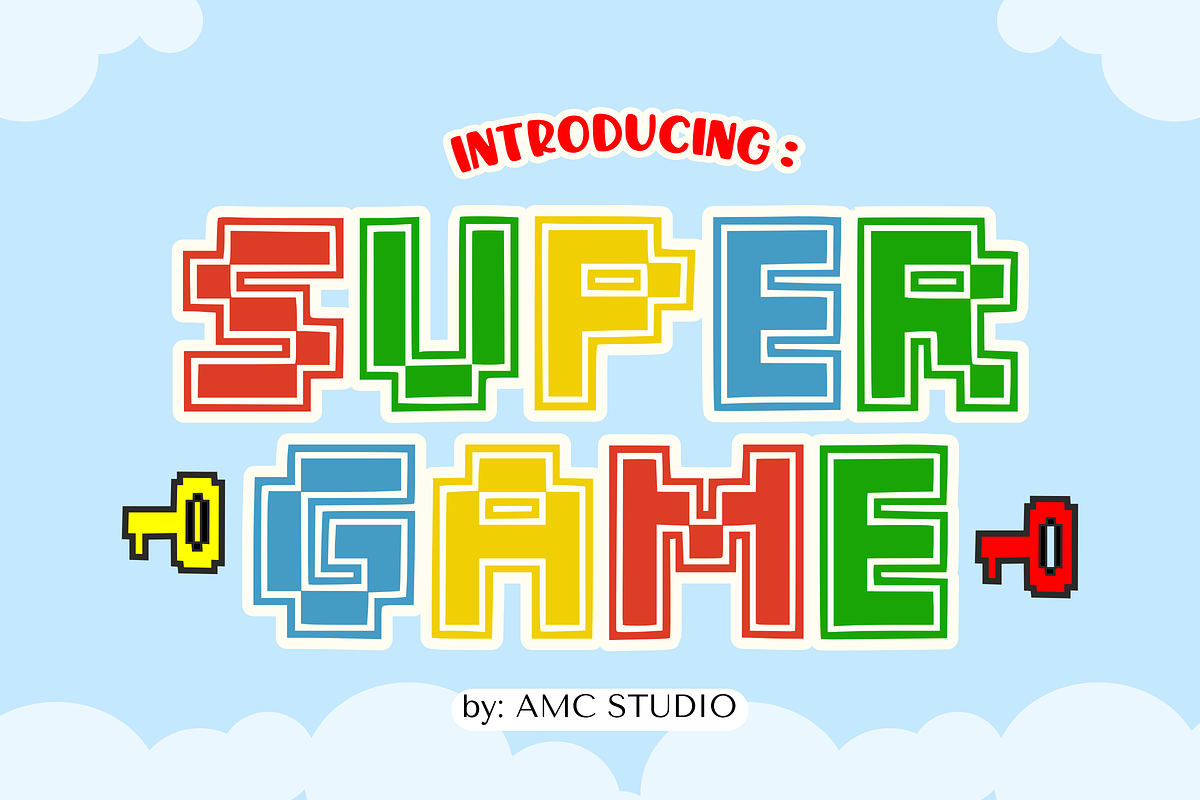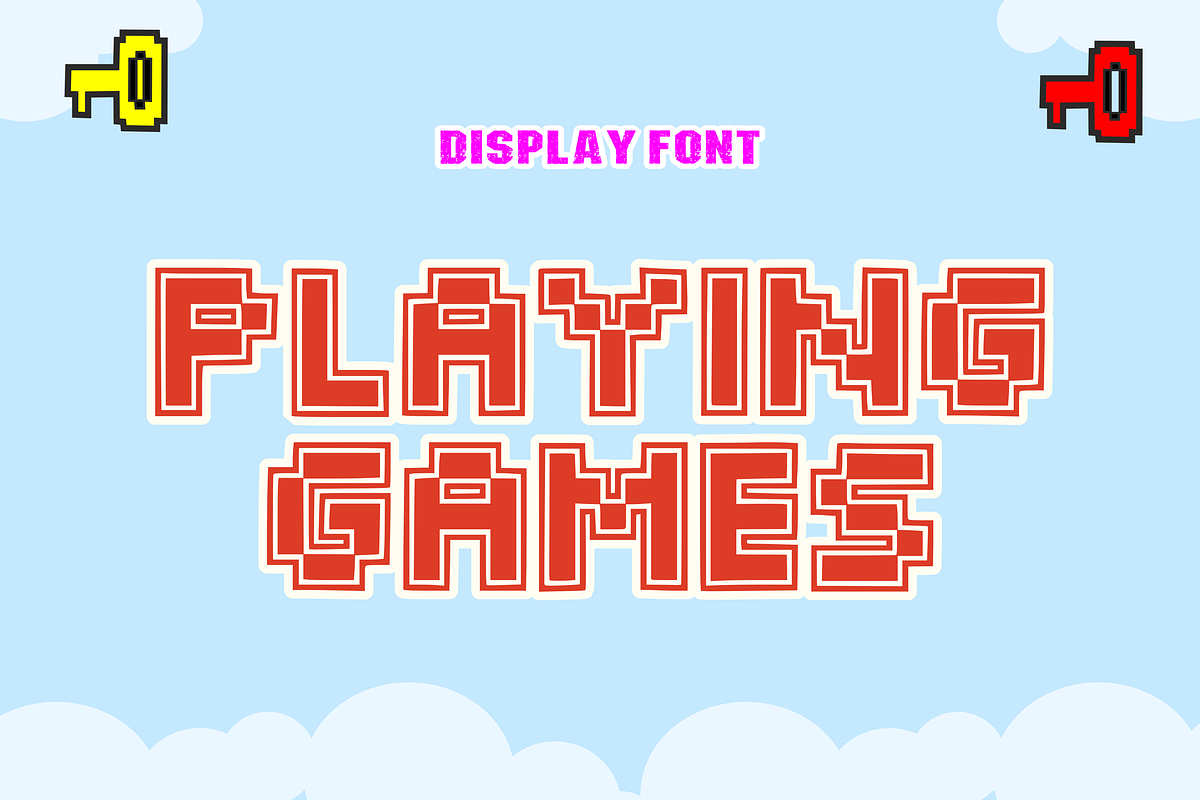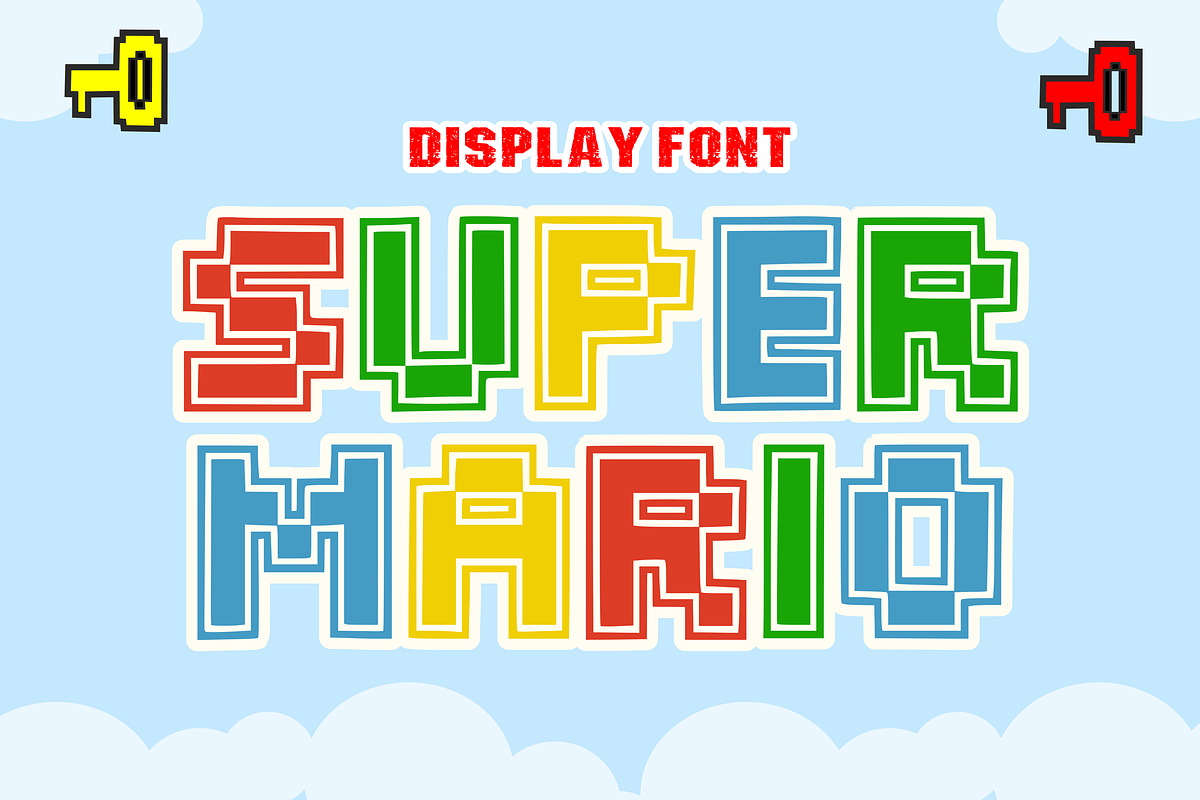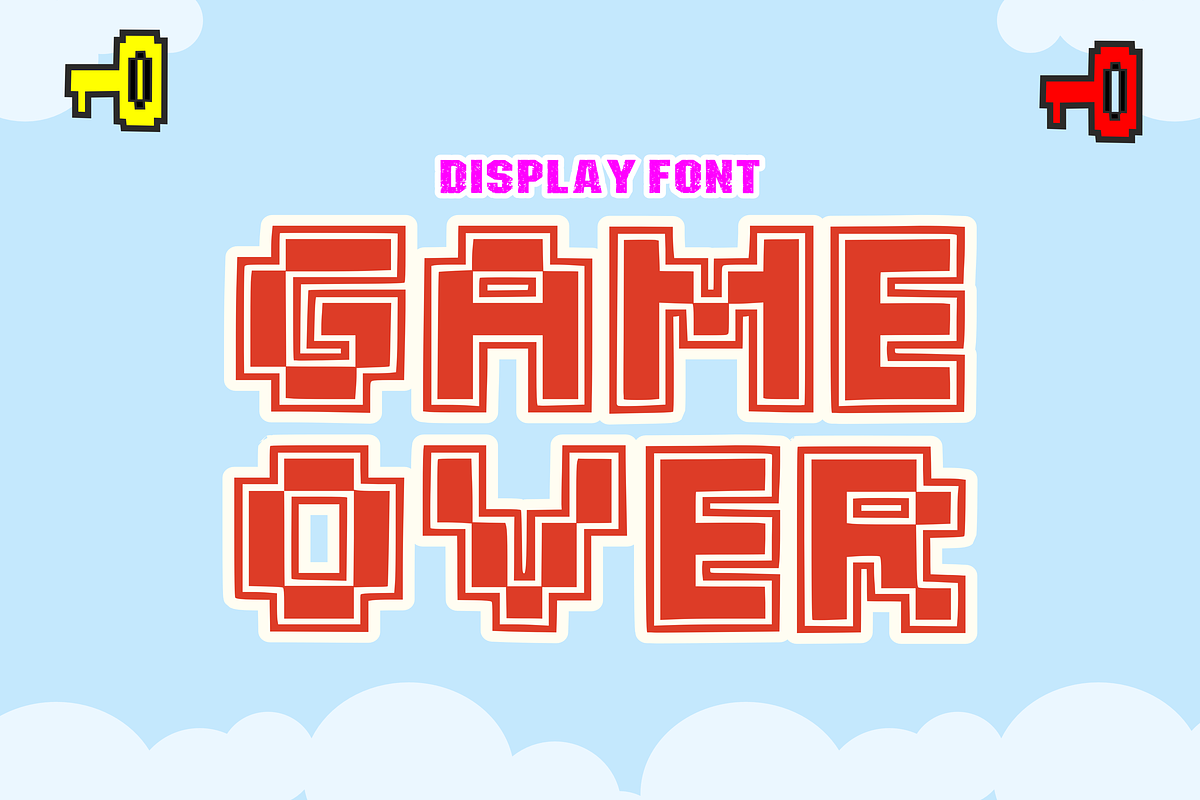
Super Game - Games Font Types
Introducing “Super Game”, a one-of-a-kind arcade-style display font radiating unadulterated fun and unique charm. Its bold, oversized contours and whimsical angles exude an air of exhilarating amusement and lively energy, while the vivacious flair of its robust strokes and vivid hues infuse a distinctive character and vivacity. Perfected for invoking nostalgia and joy, this font encapsulates the essence of delightful amusement.
Super Game’s versatility shines across various mediums, from comics and logos to web development and t-shirt design, making it an ideal choice for animation and gaming projects, among others. Immerse yourself in the world of Super Game, where every letter tells a story of fun and adventure.